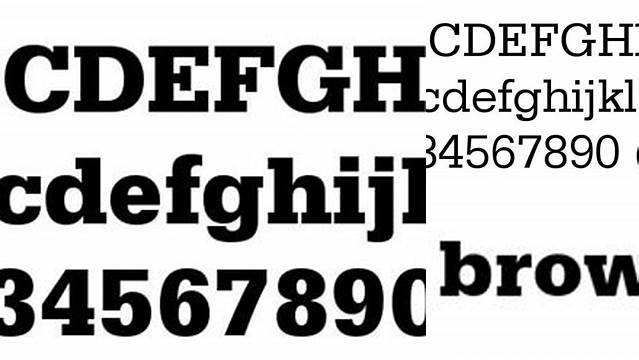
Serifa BT Black Font: Free Download Guide & Alternatives
Introduction: Understanding the Serifa BT Black Font
Hey guys! Let's dive into the world of Serifa BT Black font, a typeface that’s renowned for its bold and impactful presence. If you're on the hunt for a font that can command attention, Serifa BT Black might just be your perfect match. This font is a member of the esteemed Serifa family, designed by Adrian Frutiger in the late 1960s. Its robust and sturdy letterforms make it ideal for headlines, posters, branding, and any application where you need to make a statement. In this comprehensive guide, we’ll explore what makes Serifa BT Black so special, where you can find it for free (or at least affordable!), and how to use it effectively in your projects. We'll also discuss the legalities of downloading fonts and some alternatives if you can't find a free version that suits your needs. Whether you're a seasoned designer or just starting out, understanding the nuances of typography can significantly enhance your work. Serifa BT Black’s distinctive style combines the elegance of serif fonts with the boldness required for modern design, making it a versatile choice for a wide range of applications. From creating eye-catching logos to designing impactful marketing materials, this font can help you achieve a professional and polished look. So, let’s get started and uncover everything you need to know about Serifa BT Black font.
What Makes Serifa BT Black Font Special?
So, what's the buzz around Serifa BT Black? This font is a powerhouse of visual communication, blending readability with a strong, assertive character. The bold weight gives it a commanding presence, making it perfect for headlines, titles, and branding where you need to grab attention. Unlike some other bold fonts, Serifa BT Black maintains a level of elegance and sophistication, thanks to its well-balanced serifs and clean lines. This makes it versatile enough to be used in both print and digital media without losing its impact. One of the key features that sets Serifa BT Black apart is its exceptional legibility. Even at smaller sizes, the distinct letterforms ensure that your message remains clear and easily readable. This is crucial for body text in brochures, websites, and other materials where readability is paramount. The font also boasts a timeless quality. While it has a retro feel from its origins in the late 1960s, its design principles remain relevant and stylish today. This longevity makes it a reliable choice for projects that need to stand the test of time. Furthermore, Serifa BT Black’s availability in various weights and styles within the Serifa family allows for design consistency across different elements. You can use the regular weight for body text and the Black weight for headings, creating a harmonious and professional look. Its bold nature ensures it stands out, adding a touch of sophistication and authority to any project. Whether you're designing a logo, a poster, or a website, Serifa BT Black provides a strong foundation for visual communication.
Free Alternatives to Serifa BT Black Font
So, you're on the hunt for something like Serifa BT Black, but maybe the price tag isn't quite right, or you're having trouble finding a free version. No sweat! There are plenty of fantastic free alternatives out there that can give you a similar vibe and impact. Let’s explore some excellent options that won’t cost you a penny. One of the top contenders is Roboto Slab. This font, available on Google Fonts, boasts a strong, slab-serif design that’s reminiscent of Serifa BT Black. Roboto Slab is incredibly versatile and works well for headlines, body text, and branding. Its clear, legible letterforms make it a great choice for both print and digital projects. Another fantastic alternative is Arvo. Also available on Google Fonts, Arvo is a geometric slab-serif font that exudes confidence and readability. Its slightly rounded terminals give it a friendly yet professional feel, making it suitable for a wide range of design applications. If you’re looking for something with a slightly more vintage feel, Playfair Display is worth considering. While it's a transitional serif rather than a slab-serif, its elegant and bold appearance can provide a similar impact to Serifa BT Black in headlines and titles. Playfair Display is particularly well-suited for projects that require a touch of sophistication and class. For a more contemporary option, check out Slabo 27px. This font is specifically designed for on-screen readability, making it an excellent choice for websites and digital publications. Its clean lines and sturdy serifs ensure that your text remains clear and legible even at smaller sizes. Lastly, Bitter is another solid choice from Google Fonts. This slab-serif font is designed with readability in mind, especially for screens. Its slightly condensed letterforms make it efficient for text-heavy designs, while its bold weight can effectively mimic the impact of Serifa BT Black. When choosing a free alternative, it's important to consider the specific needs of your project. Experiment with different fonts and see which one best captures the essence of Serifa BT Black while aligning with your overall design aesthetic. Remember, the best font is the one that communicates your message effectively and enhances your visual identity.
How to Effectively Use Serifa BT Black in Your Designs
Alright, you've got your hands on Serifa BT Black, or a similar alternative, and now it's time to put it to work! But how do you use this bold and beautiful font effectively in your designs? Let's break it down into some practical tips and best practices to ensure you're making the most of its potential. First and foremost, Serifa BT Black shines as a headline font. Its strong, commanding presence instantly grabs attention, making it perfect for titles, headings, and taglines. Use it to make a statement and draw your audience in. However, avoid using it excessively, as too much bold text can become overwhelming. In body text, Serifa BT Black might be a bit too heavy for extended paragraphs. Instead, consider pairing it with a lighter serif or sans-serif font for the main body of your text. This creates a visual hierarchy and improves readability. For example, you could pair Serifa BT Black with a clean sans-serif like Open Sans or a more delicate serif like Lora. When it comes to branding, Serifa BT Black can be a fantastic choice for logos and brand marks. Its bold and authoritative character conveys a sense of strength and reliability, making it ideal for businesses that want to project a confident image. Think about using it for your company name or a key brand message. In print materials such as posters and brochures, Serifa BT Black’s legibility and impact are invaluable. Use it to highlight key information, create eye-catching visuals, and guide the reader's eye. Remember to consider the overall design and ensure that the font complements the other elements on the page. In digital design, Serifa BT Black can add a touch of sophistication to websites and online graphics. However, pay attention to font loading times and ensure that your website remains fast and responsive. Optimize the font files if necessary to minimize any performance issues. Typography is all about creating harmony and balance. Experiment with different font sizes, weights, and spacing to achieve the desired effect. Don't be afraid to play around and see what works best for your specific project. By following these tips, you can leverage the power of Serifa BT Black to create designs that are both visually appealing and highly effective.
Conclusion: Mastering the Serifa BT Black Font and Typography
So, there you have it, guys! We’ve taken a deep dive into the world of Serifa BT Black font, exploring its unique qualities, where to find it (or great alternatives), how to use it effectively, and the legal considerations to keep in mind. Mastering typography is a journey, and understanding fonts like Serifa BT Black is a crucial step in creating visually compelling and impactful designs. Serifa BT Black’s bold and elegant character makes it a standout choice for a wide range of applications, from headlines and branding to posters and digital graphics. Its legibility and strong presence ensure that your message is not only seen but also remembered. However, typography is more than just choosing a great font. It’s about understanding how different fonts work together, how to create visual hierarchy, and how to communicate your message effectively. Experiment with different font pairings, sizes, and weights to find the perfect balance for your project. Don't be afraid to break the rules and try something new, but always prioritize readability and clarity. If you can't find Serifa BT Black for free, remember that there are plenty of excellent alternatives available, such as Roboto Slab, Arvo, and Playfair Display. These fonts offer similar characteristics and can help you achieve a comparable aesthetic without breaking the bank. Always remember the legal aspects of font licensing. Using fonts responsibly protects both you and the designers who create them. Stick to reputable sources, read the licensing terms carefully, and don’t hesitate to ask for clarification if you’re unsure. Ultimately, the goal of typography is to enhance your message and engage your audience. By mastering fonts like Serifa BT Black and following best practices, you can create designs that are not only visually appealing but also highly effective in achieving your communication goals. So, go forth and create something amazing!